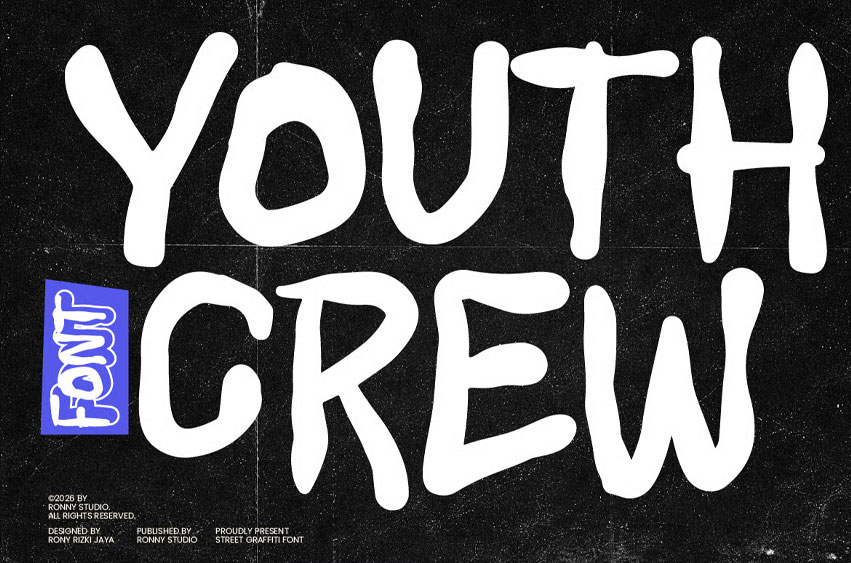
Youth Crew Font
Youth Crew Font is a bold hand-drawn display font inspired by hardcore music scenes, skate culture, underground movements, and DIY zine aesthetics. Built with raw strokes and expressive character shapes, this typeface delivers a loud, rebellious presence that instantly grabs attention.
Every letter is designed to feel energetic and unapologetic—perfect for creatives who want strong visual impact and authentic street attitude in their work.
Perfect For: Posters, music artwork, album covers, editorial headlines, event promotions, social media graphics, digital artwork, branding projects, movie titles, and bold typographic layouts.
Youth Crew is made for projects that need to feel powerful, expressive, and impossible to ignore.